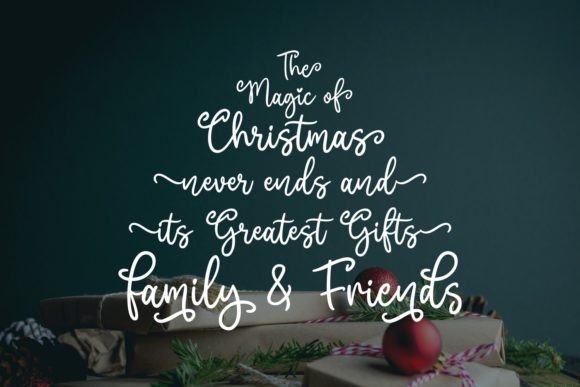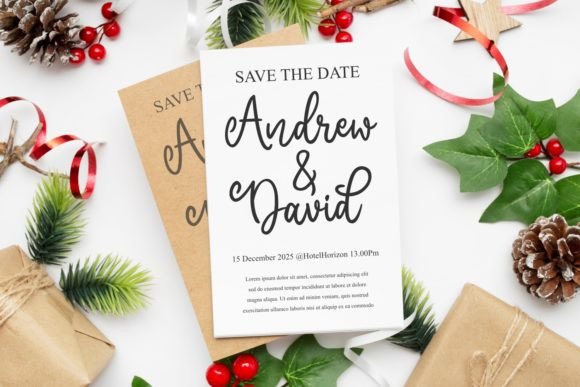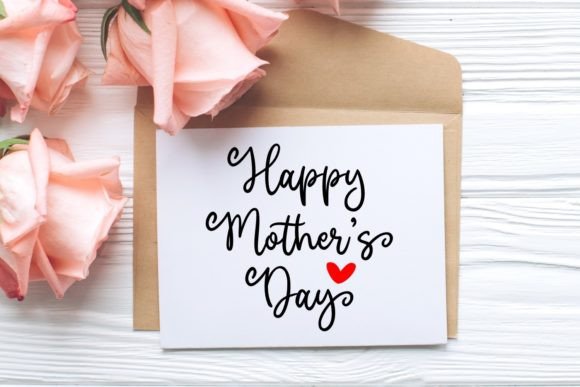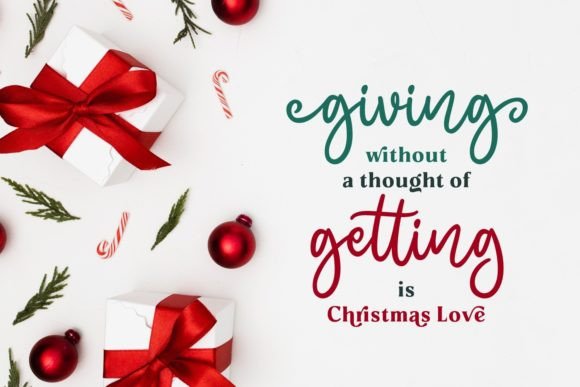
Jolly Holly Christmas Font
Jolly Holly Christmas is a sweet and friendly handwritten font. It will add a luxury spark to any design project that you wish to create! This font is PUA encoded which means you can access all of the amazing glyphs and ligatures with ease!